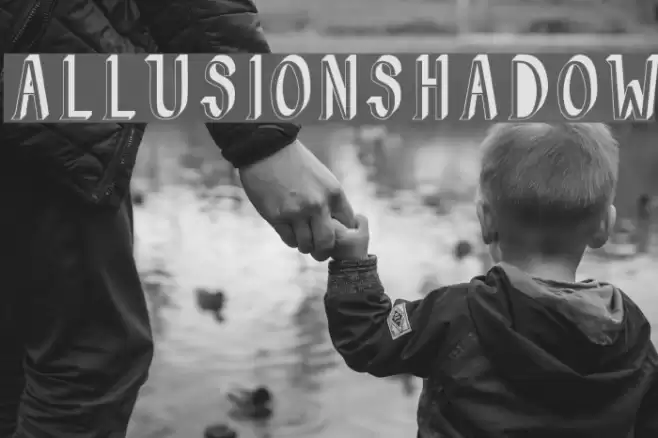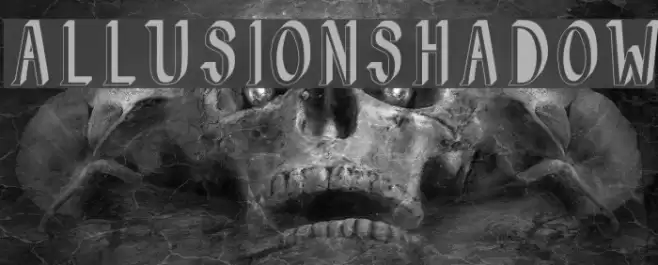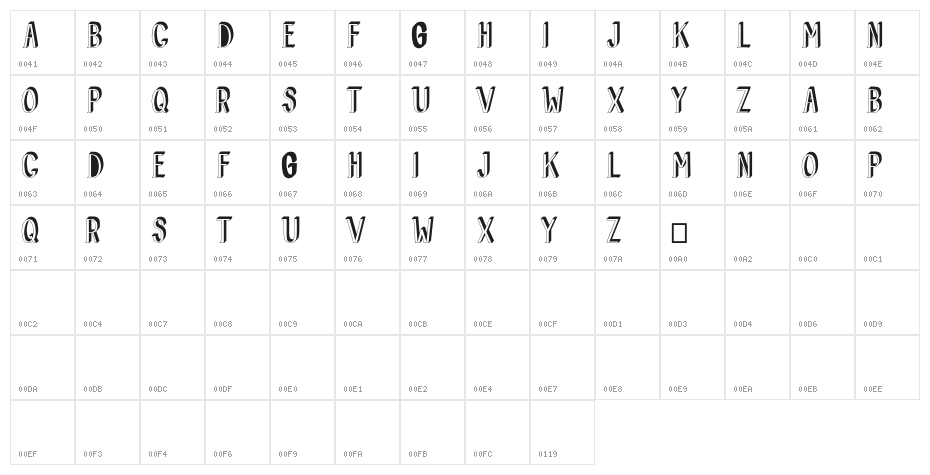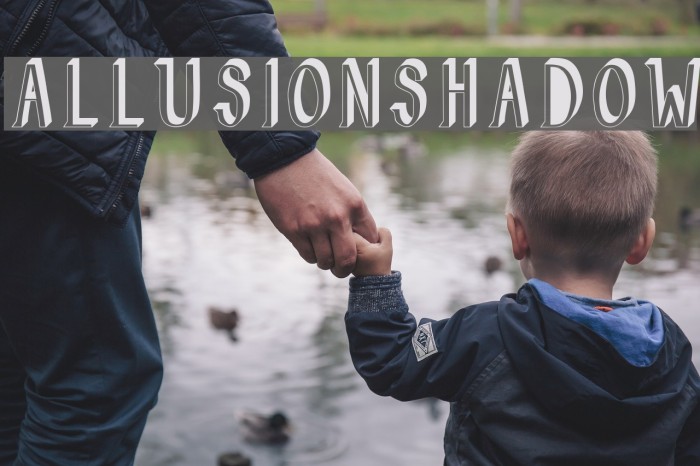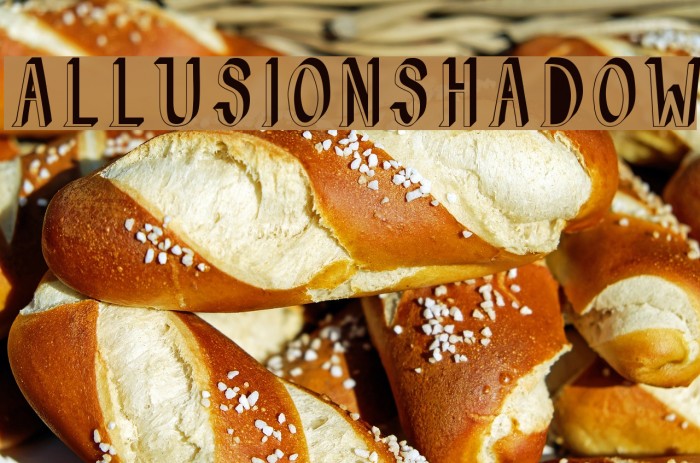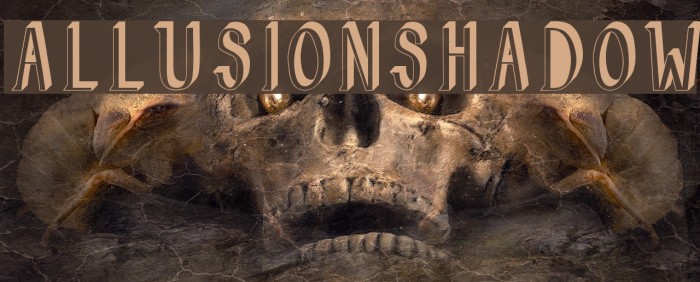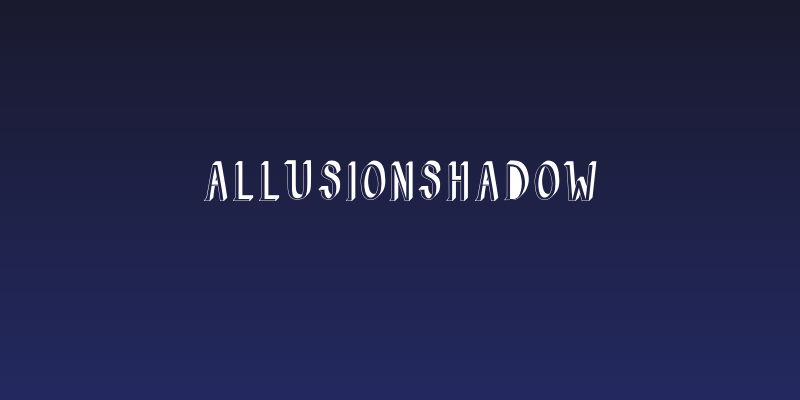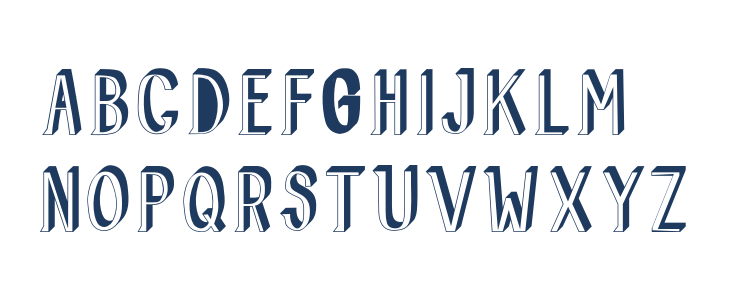
AllusionShadow Font
AllusionShadow Description
This font features a bold and striking design with a three-dimensional shadow effect that gives it a unique and eye-catching appearance. The letters are uppercase and have a strong, geometric structure with sharp angles and clean lines. The shadow effect adds depth and dimension, making the characters stand out prominently. This style is reminiscent of vintage signage and poster art, providing a nostalgic yet modern feel. The font's boldness and distinctive shadow make it ideal for creating impactful headlines and titles.
A bold, shadowed font with a vintage, three-dimensional style from Uncategorized fonts.
- Proposed Projects: Ideal for retro-themed posters, eye-catching headlines, and branding that requires a bold statement.
- Overall Style: Vintage